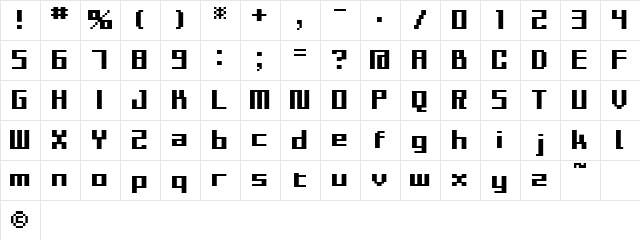
BM sly A10
Design Context for BM sly Typeface
BM sly offers clean, dependable letterforms without strong stylistic allegiance, making it a practical choice for designers who need flexibility.
Pro Tip: Use BM sly in both headline and body roles to test its range before committing to a single application.